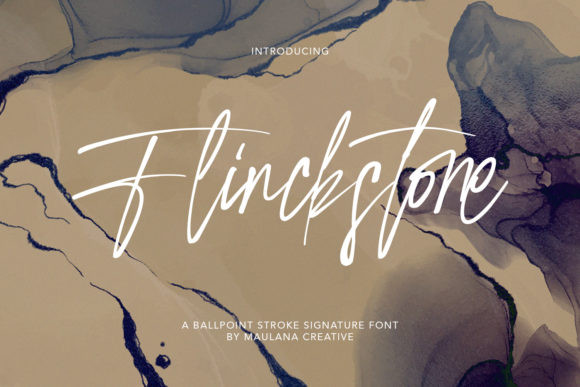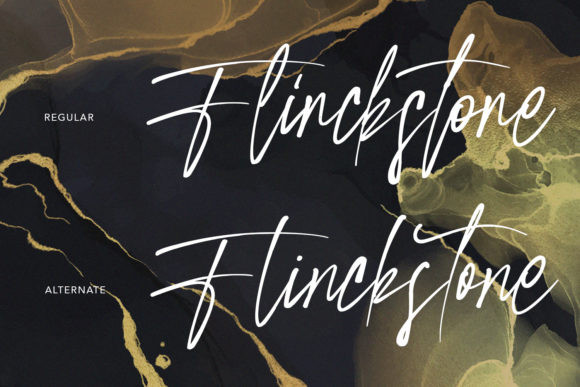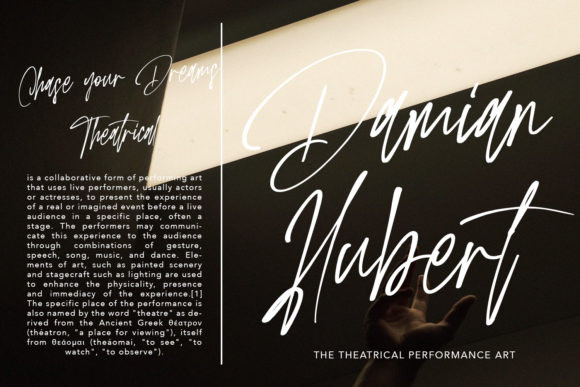
Flinckstone Font
Flinckstone is a thin and eye catching handwritten font. This versatile script font has a wide range of applications ranging from greeting cards to kids’ crafts, and is guaranteed to add a sweet touch to your next design.